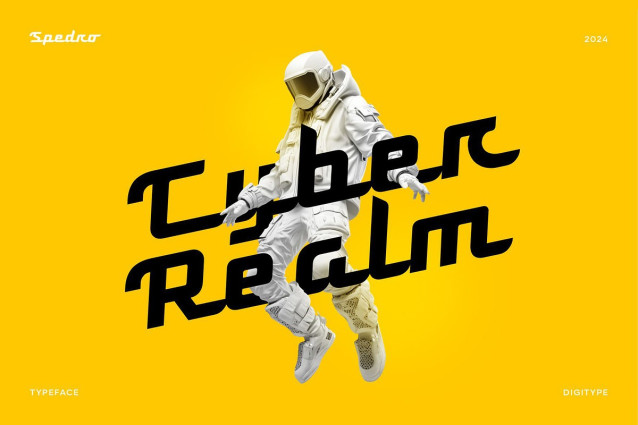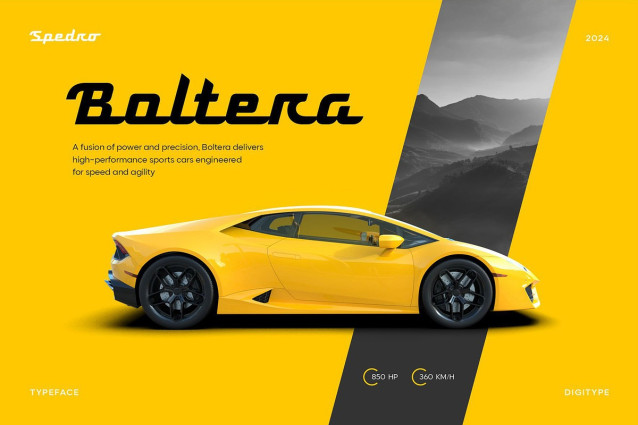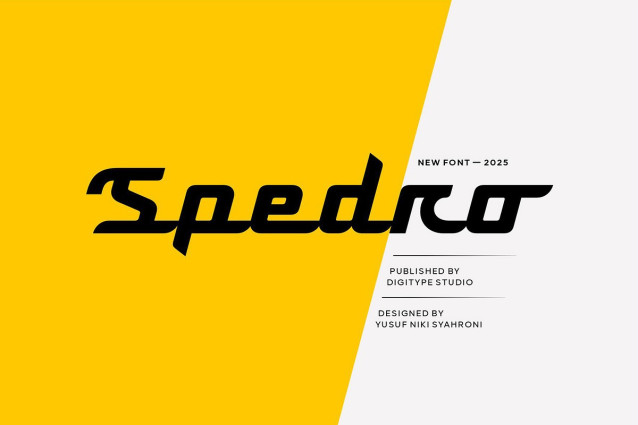
Spedro Script Font
Spedro Script Font is a sporty script font, sharp and bold, designed with a dynamic and energetic aesthetic to bring speed and vitality to your projects. Its futuristic and powerful design makes it ideal for branding, sports, the automotive industry, technology, esports, and any project that requires a strong, stylish presence.